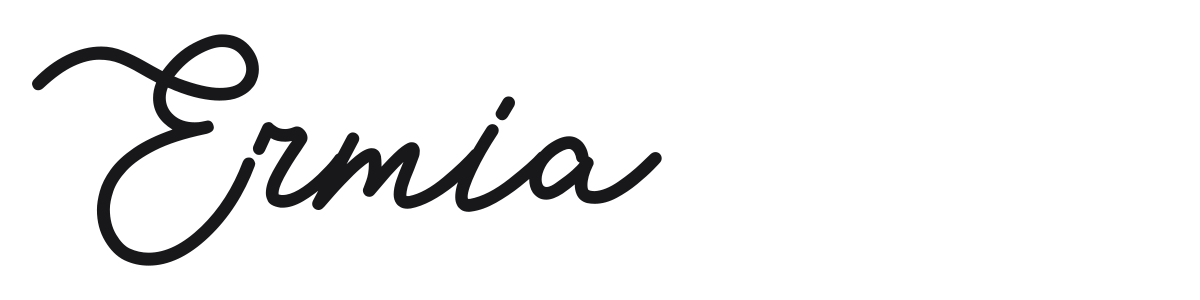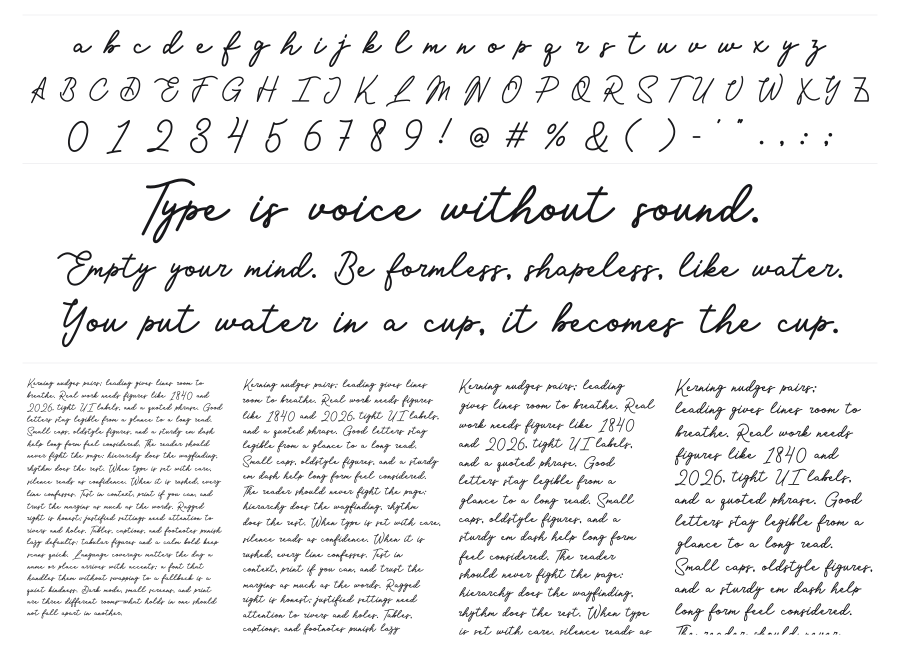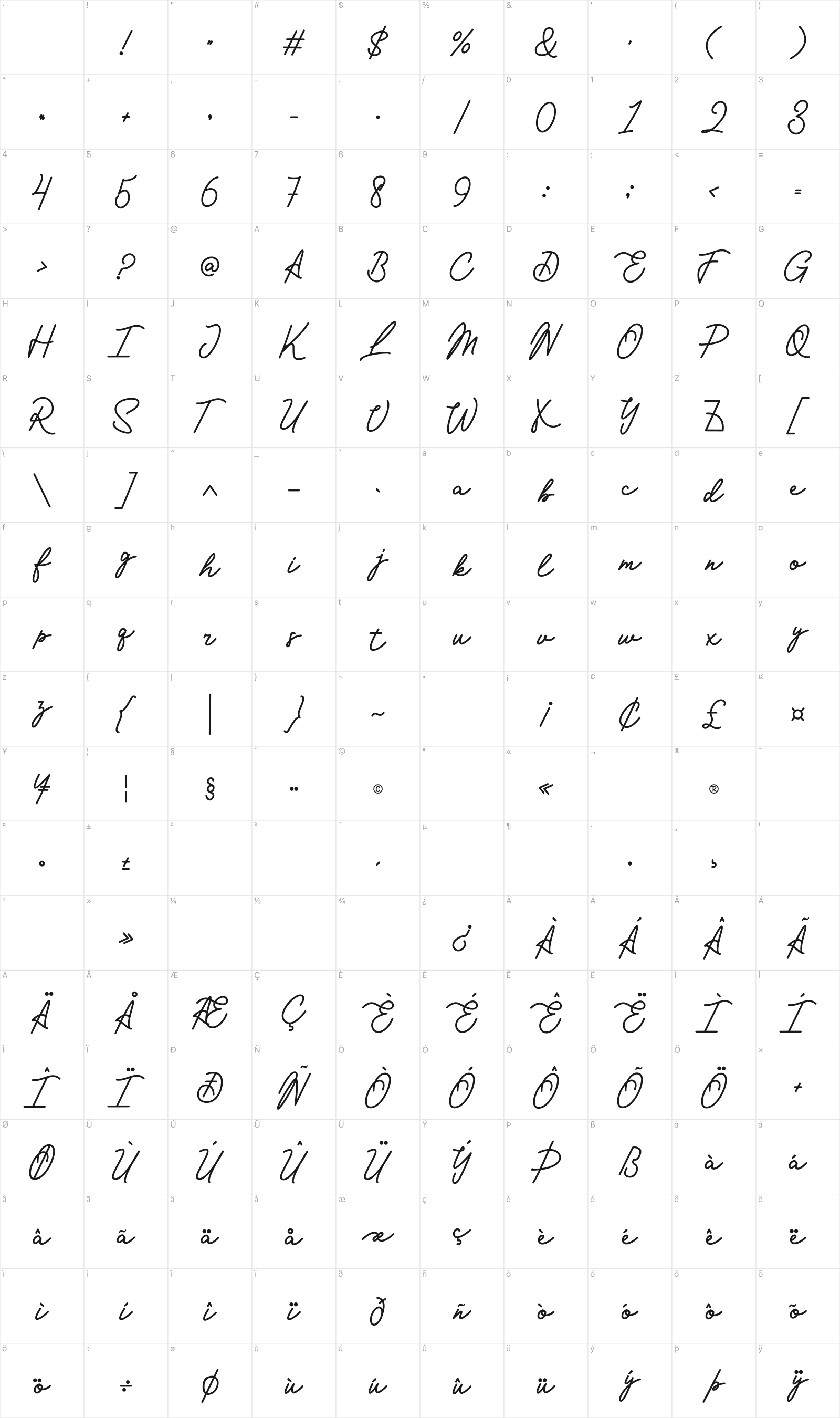
Ermia
Ermia is a casual connected script from GFRcreative with the easy, unforced feel of handwriting done with a felt-tip marker. The letters flow naturally from one to the next with gentle slant and smooth curves that stay legible without looking overly formal. It suits branding, packaging, and anywhere a human touch is needed.